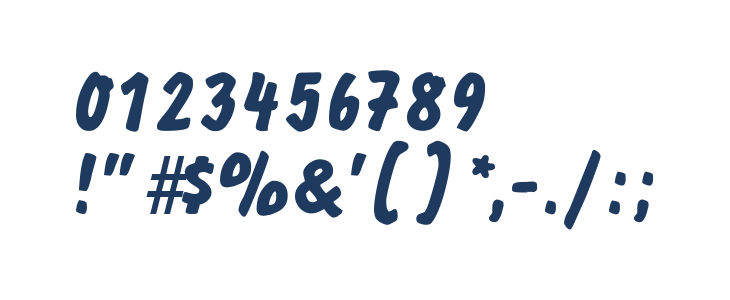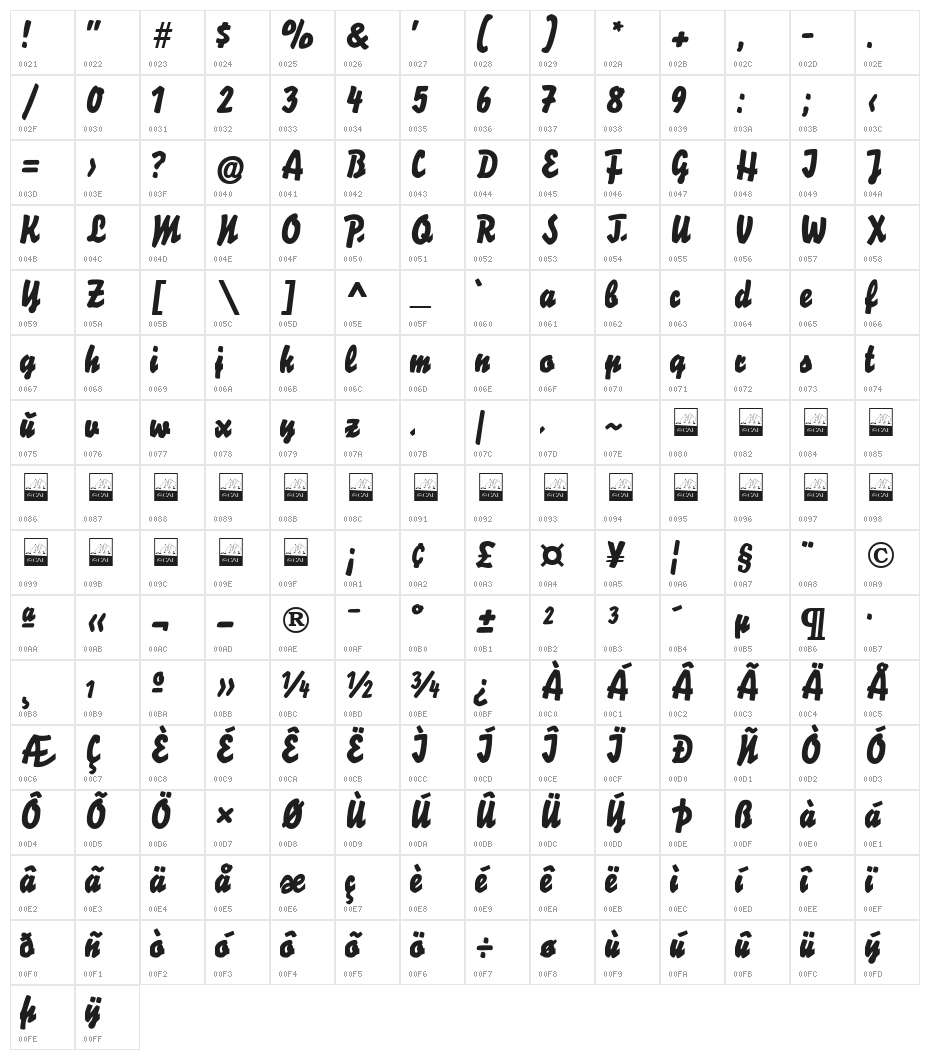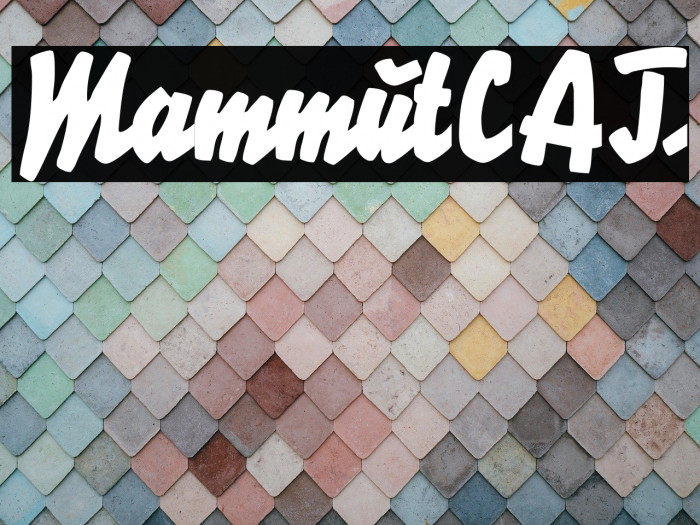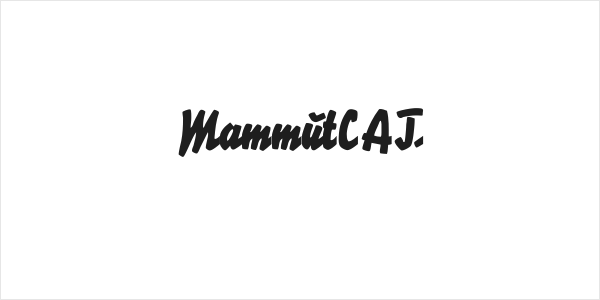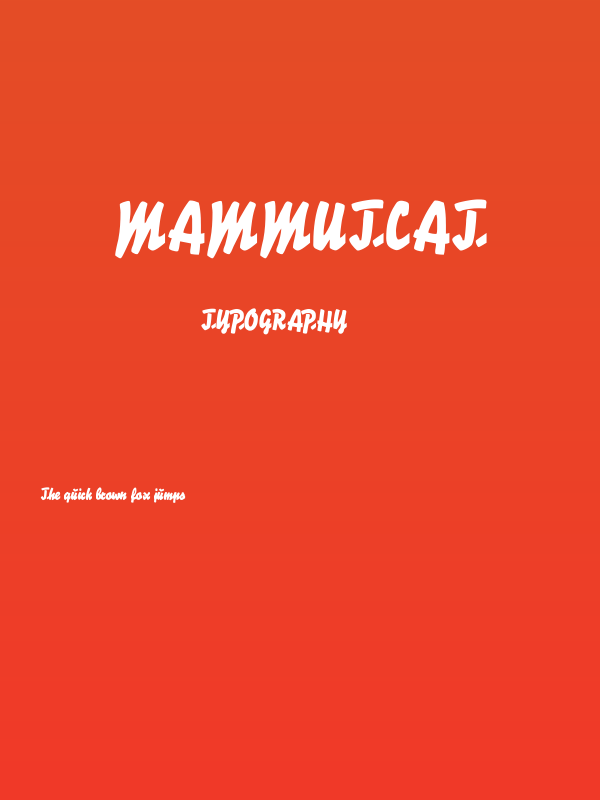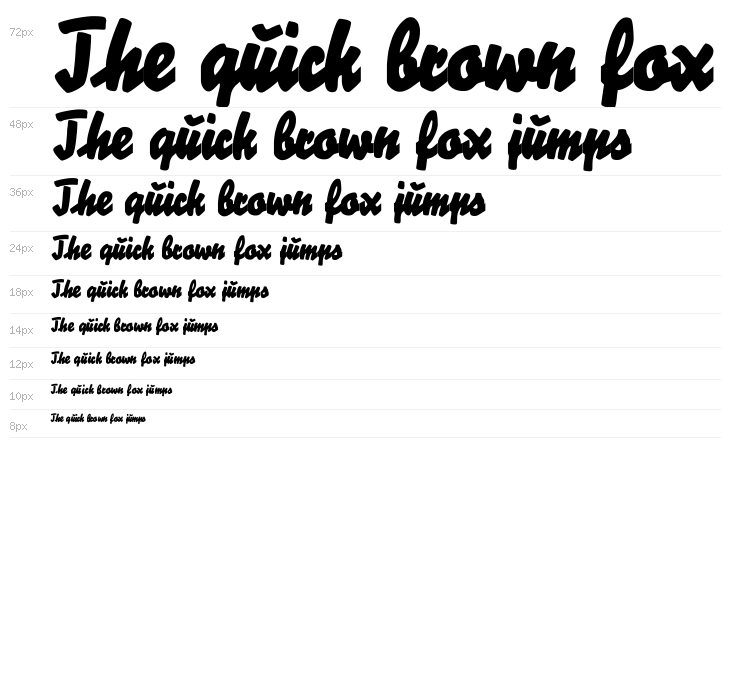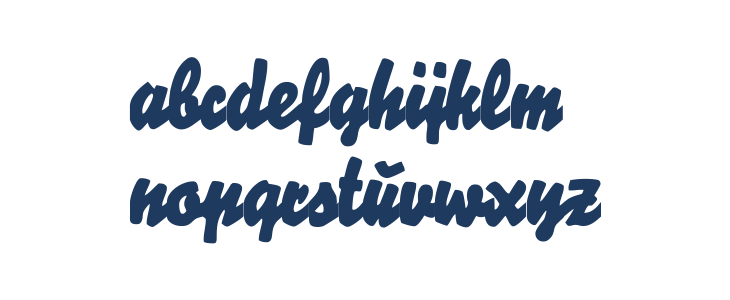
MammutCAT Font
MammutCAT Description
This font features a bold and dynamic script style with a strong presence. Its characters are connected, giving it a fluid and cohesive look. The strokes are thick and consistent, providing a sense of strength and stability. The uppercase letters are slightly more angular, while the lowercase letters maintain a smooth and flowing appearance. The numerals and special characters are designed to match the overall style, ensuring uniformity across all elements. This font is ideal for making a bold statement and capturing attention.